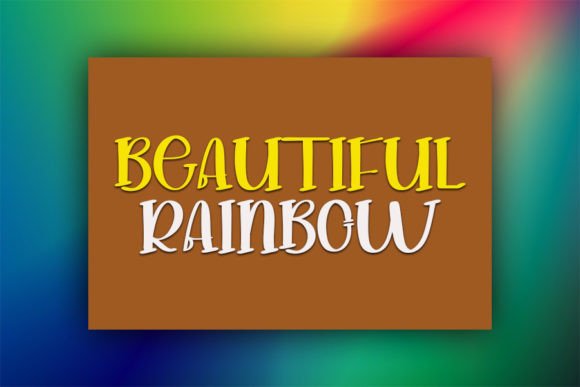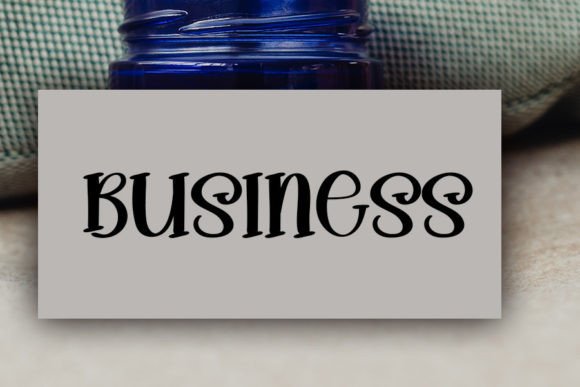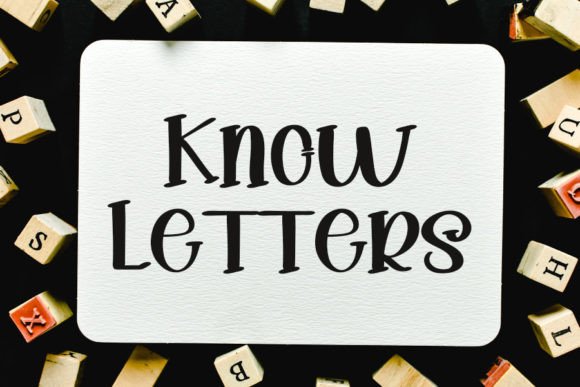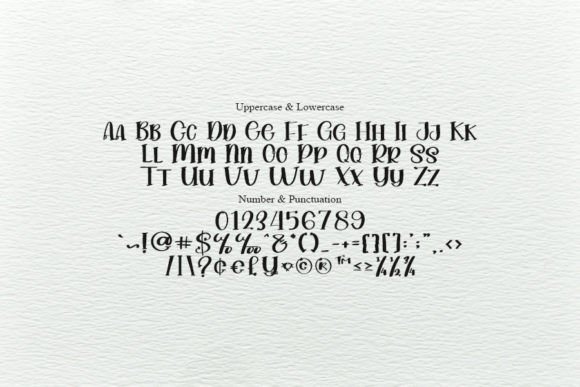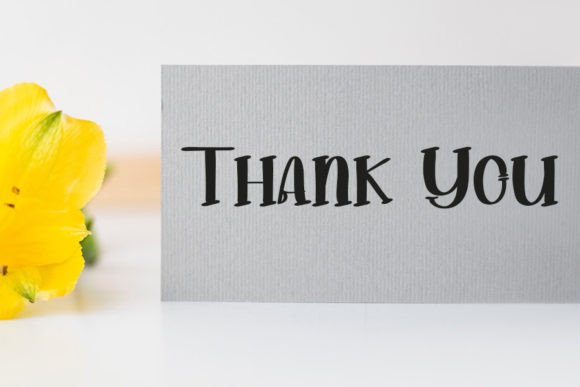
The Comic Book Font: A Fun and Quirky Display Font for Your Designs
A Personal Review: What I Love About Comic Book Font
The Comic Book font is a fun and quirky display font that has become a staple in my design toolkit. Here’s what I love about it:
- ✨ Strong and confident: The font reads as bold and dynamic, making it perfect for headlines and logotype projects.
- ✅ Nostalgic character: The font’s design is reminiscent of classic comics, adding a touch of nostalgia to your designs.
- 🌈 Versatile: The font comes in various weights and styles, making it suitable for a wide range of design projects.
While I love the Comic Book font, there are a few quirks to be aware of:
- 🤔 Limited use in body text: Due to its bold and playful nature, the font may not be suitable for body text or reading-heavy content.
- ⚠️ Glyph limitations: Some users have reported limitations in the font’s glyph set, which may impact its use in certain design projects.
The Comic Book font was designed with the goal of capturing the essence of classic comics. The designer, inspired by the bold and playful typography of comic books, created a font that’s both nostalgic and modern. While the actual design process is shrouded in mystery, it’s clear that the font was crafted with love and attention to detail.
| What is the Comic Book font best used for? | The Comic Book font is best used for headlines, logotype projects, and designs that require a bold and playful touch. |
| Is the Comic Book font suitable for body text? | No, the Comic Book font is not suitable for body text due to its bold and playful nature. |
| Is the Comic Book font available in different weights and styles? | Yes, the Comic Book font comes in various weights and styles, making it versatile for different design projects. |